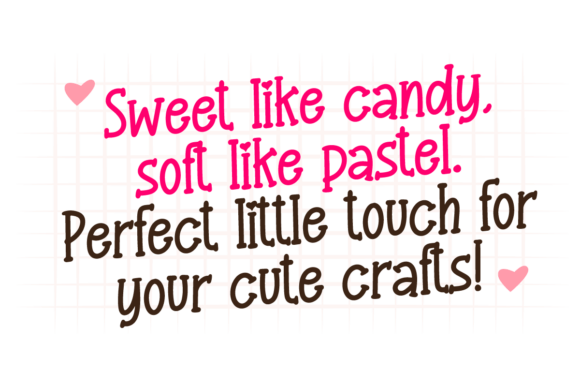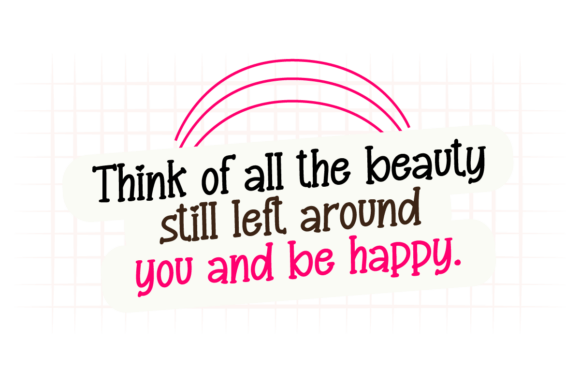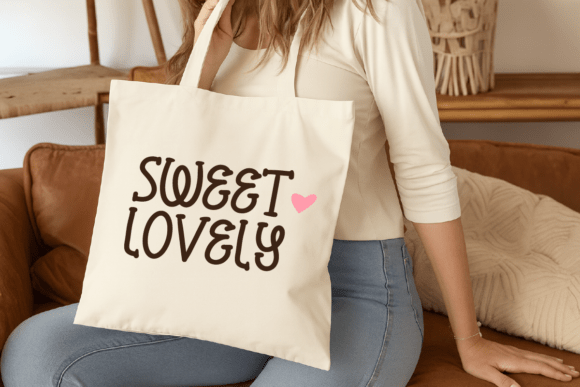
Introduction to Milkie Choco Font
Have you ever stumbled upon a font that instantly transports you to a world of sweetness and playfulness? For designers and creatives, finding the perfect font can be a game-changer. It’s that moment when your design comes together, and you know you’ve found the perfect match. For me, that moment came when I discovered the Milkie Choco Font.
This charming handwritten serif font is more than just a pretty face – it’s a design resource that’s packed with personality. With its soft, pastel-inspired style and rounded letters, Milkie Choco Font is the perfect addition to any creative project. Whether you’re crafting stickers, planners, or sublimation designs, this font is sure to add a touch of whimsy and fun.
As a valuable resource for designers, Milkie Choco Font offers high-quality characters, including uppercase, lowercase, numbers, and punctuation, making it a great choice for a wide range of projects. And the best part? It’s available for free download, making it a must-have for any design enthusiast looking to add a little extra sweetness to their designs.
Key Features of Milkie Choco Font
- Unique Design: The Milkie Choco Font features a distinctive, hand-drawn style with a mix of bold and playful lines, making it perfect for creative projects that require a touch of whimsy.
- Perfect for Creative Projects: The Milkie Choco Font is ideal for use in creative projects, such as branding, advertising, and editorial design, where a unique and eye-catching font can make a big impact.
Honest Review: Milkie Choco Font
As a designer, I’m always on the lookout for unique and high-quality design resources to elevate my creative projects. Recently, I stumbled upon the Milkie Choco Font, and I’m excited to share my thoughts on this free download.
One of the standout features of the Milkie Choco Font is its transparent background, which makes it incredibly versatile for use in various design projects. I’ve used it to create eye-catching graphics and logos, and it’s always a crowd-pleaser.
Here are some of the things that work well with the Milkie Choco Font:
- ✨ Unique and playful style that adds a touch of whimsy to any design project
- ✨ High-quality design that’s perfect for print and digital applications
- ✨ Easy to customize and manipulate for a personalized look
- ⚠️ Limited character set, which may not be ideal for longer text-based projects
- ⚠️ Not suitable for use in complex layouts or designs with multiple font sizes
Overall, I’m impressed with the Milkie Choco Font, and I’d highly recommend it to designers looking for a fun and creative design resource. Just be sure to keep its limitations in mind when using it in your projects.
The Milkie Choco Font is ideal for creative projects such as:
- Food and drink packaging design
- Wedding invitation design
- Photography captions